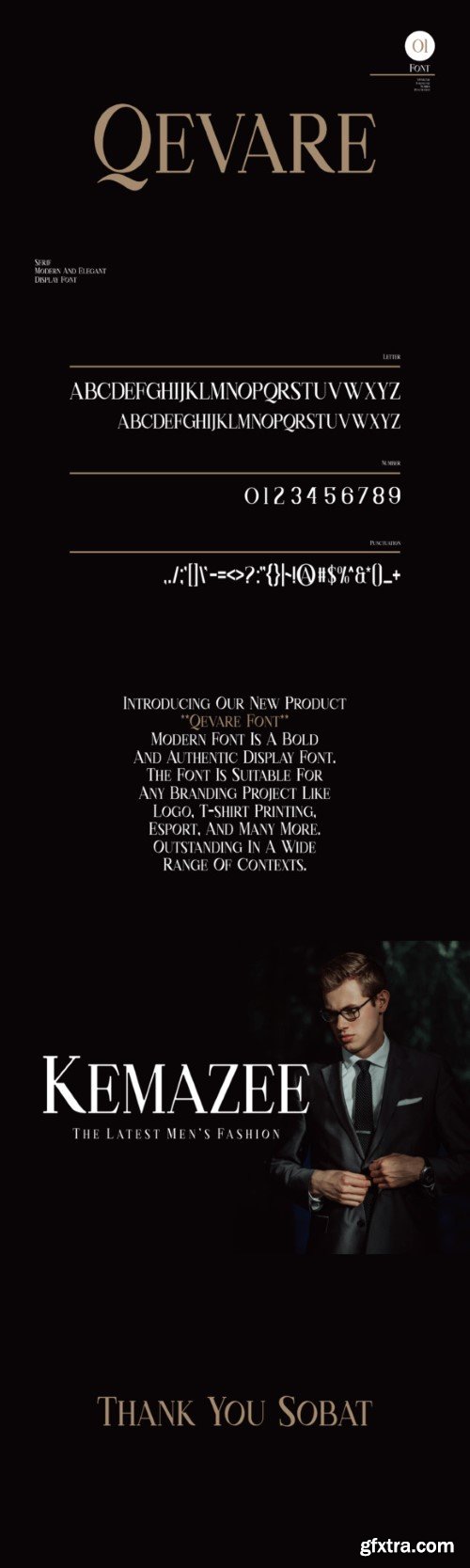
**Qevare Font** – Modern Font is a bold and authentic display font. The font is suitable for any branding project like logo, esport, and many more. outstanding in a wide range of contexts.